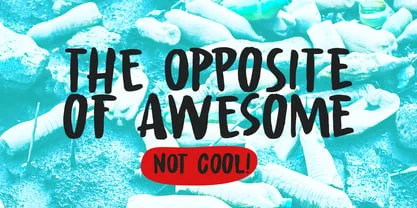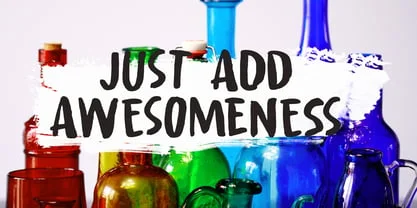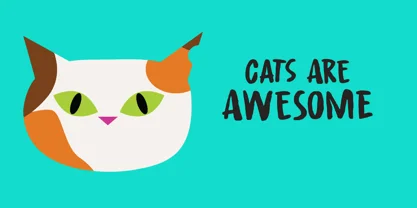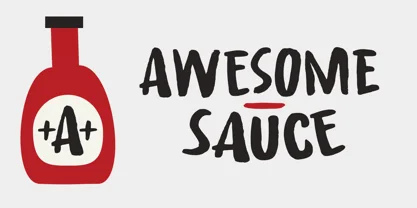
Awesome Sauce Font
Typography shapes perception at a subconscious level. Awesome Sauce leverages optical balance across all weights to make every composition feel considered. The typeface brings a versatile sensibility to a broad range of creative disciplines, with consistent type colour across continuous text that holds up whether the work is print-first or screen-first.
In practice, Awesome Sauce proves particularly effective for editorial layouts, product labels, signage systems, advertising campaigns, packaging design. Designers reaching for it find that the type decisions feel resolved rather than laboured — a useful quality when client timelines are tight.
The range of applications extends to brand identity systems, poster creation, logo design, annual reports. That breadth is deliberate: the proportions and spacing were stress-tested across a wide range of mock briefs before the typeface was finalised.
At smaller sizes the design retains its character without becoming cluttered. This resilience across scales makes Awesome Sauce equally suitable for a business card and a billboard — a useful property when assets must scale across a campaign.
UX designers establishing typographic systems for digital products find Awesome Sauce a reliable choice for projects that demand both personality and restraint. The design avoids the self-conscious quirkiness that dates quickly, settling instead for considered distinctiveness that holds up over time.